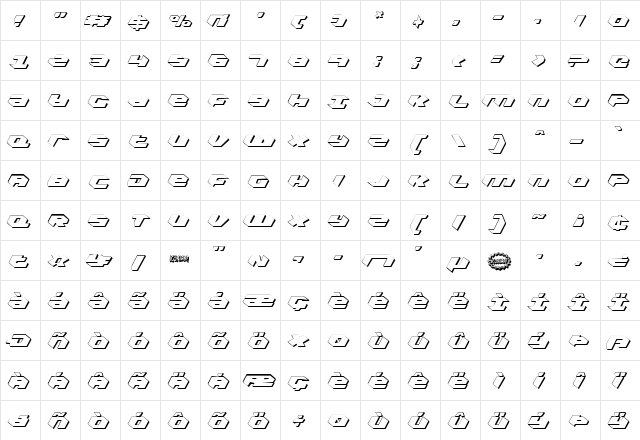
Kubrick Shadow Condensed Condensed
Design Context for Kubrick Shadow Condensed Typeface
Kubrick Shadow Condensed is built around its visual character rather than neutral utility — its distinctive forms are designed to make an impression at display sizes.
Font Pairing: Pair with a clean neutral sans-serif for body copy to let Kubrick Shadow Condensed's character lead without overwhelming the composition.
Pro Tip: Use Kubrick Shadow Condensed exclusively at display sizes — it was designed to be seen, not read at length. Let a neutral companion handle body copy.